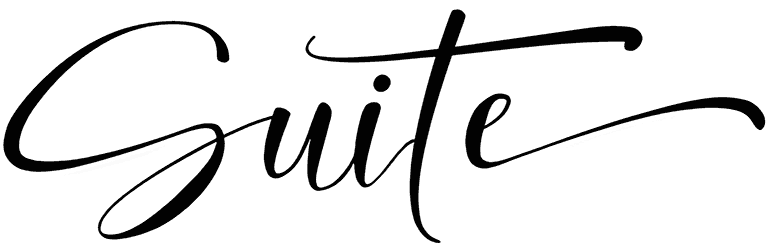
Suite Font
Let’s set this calligraphy on the text of your new design and leave a lasting impression on your potential clients. The Suite font consists of soft and ravishing characters that can be matched with different tastes. This calligraphy font is a perfect pick for many projects, namely a Thanksgiving postcard, a nail salon sign, and so forth.